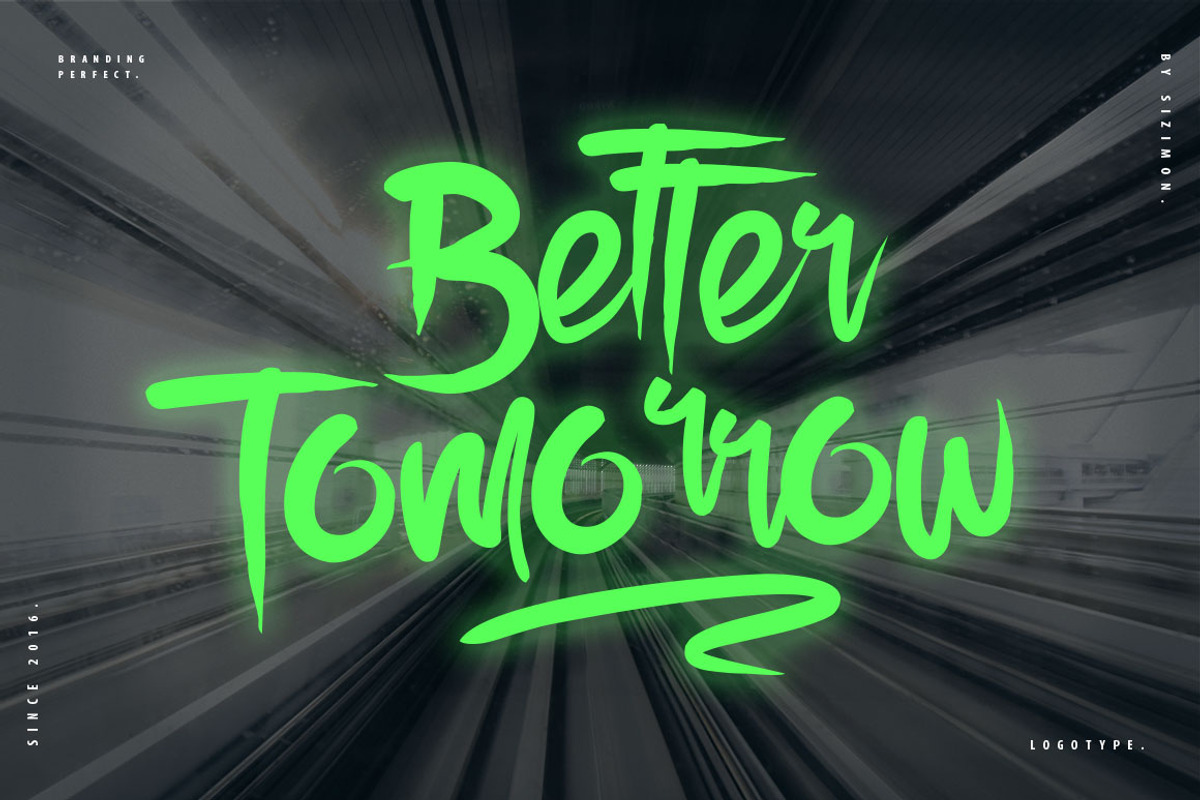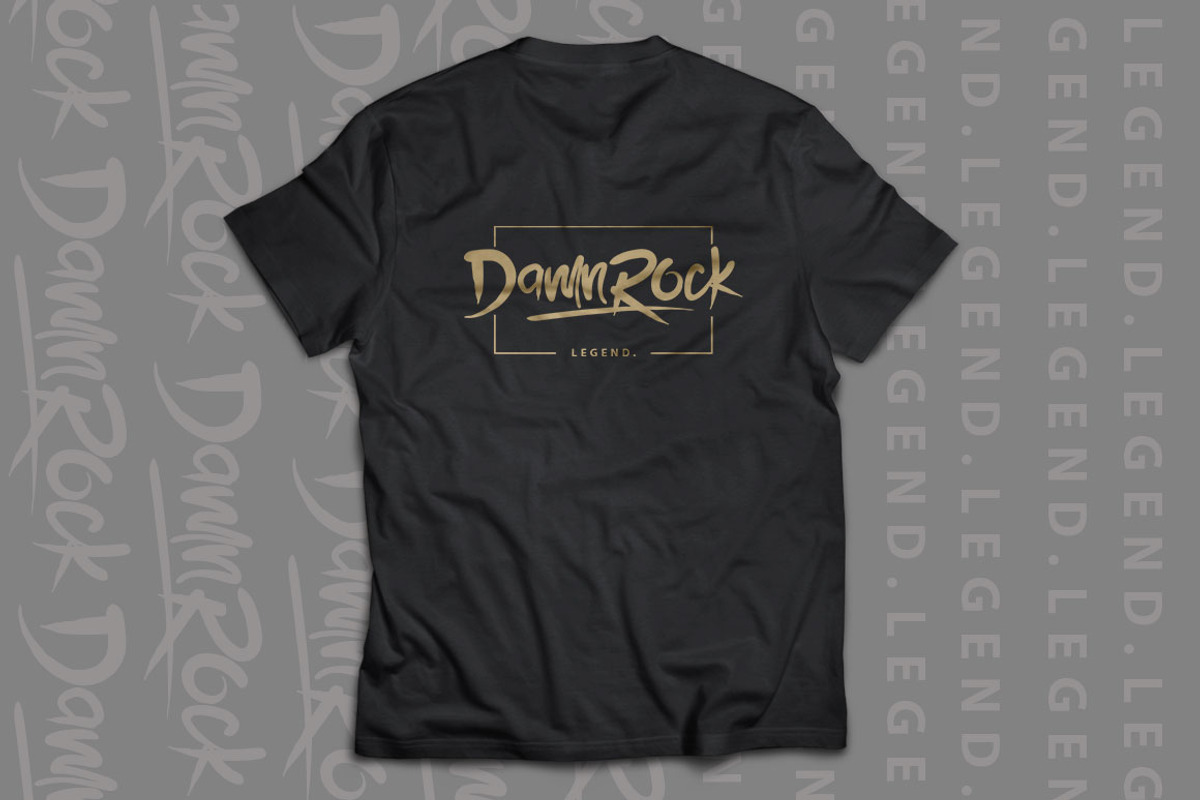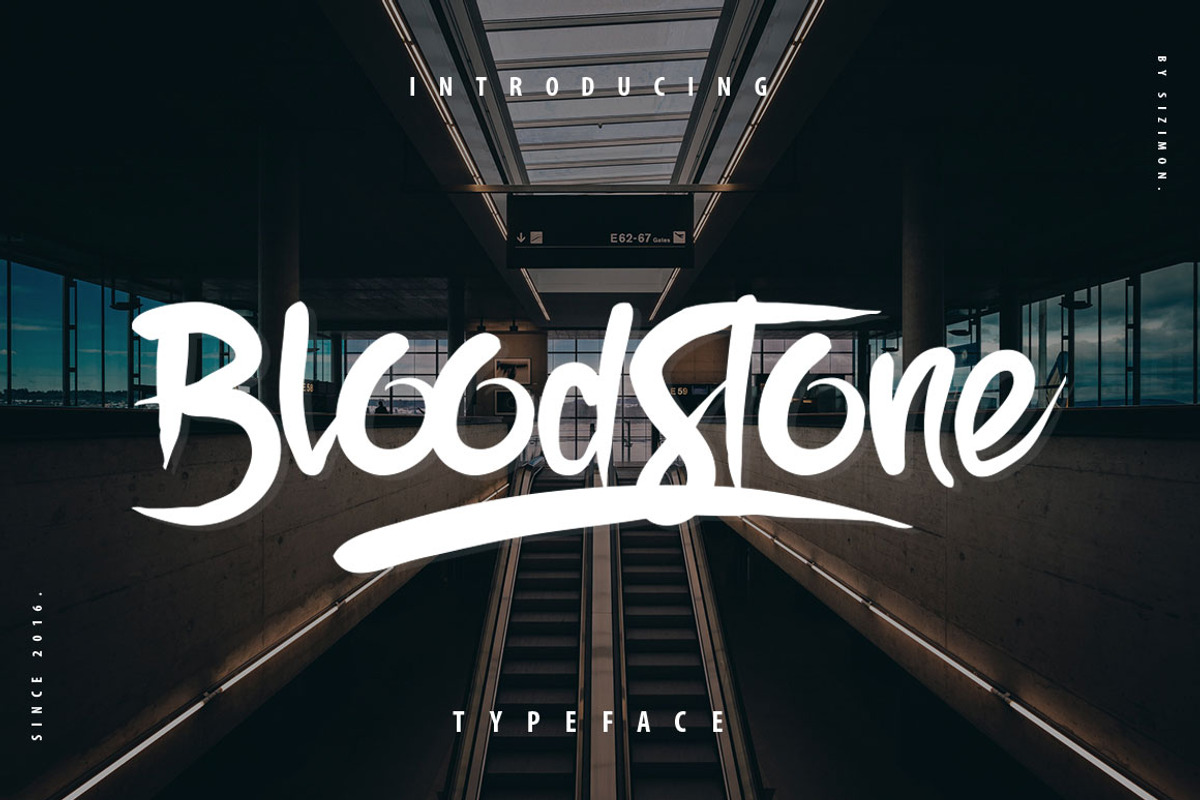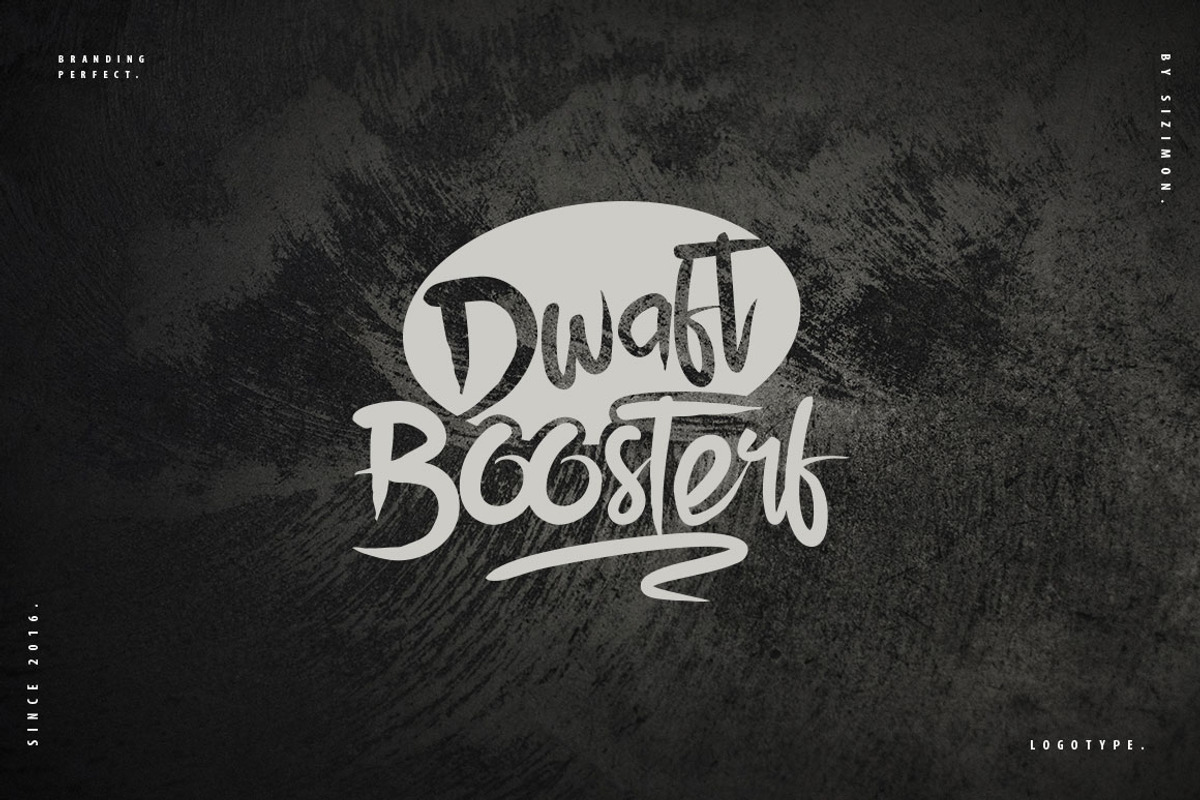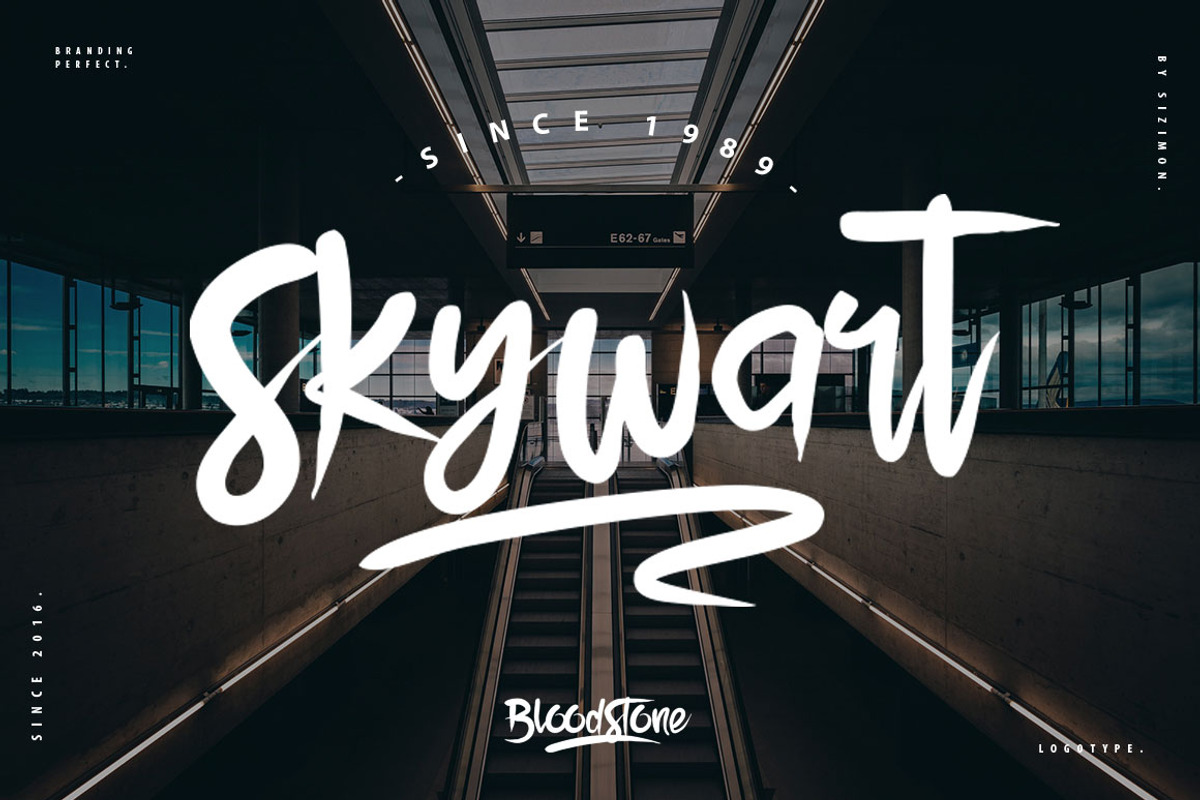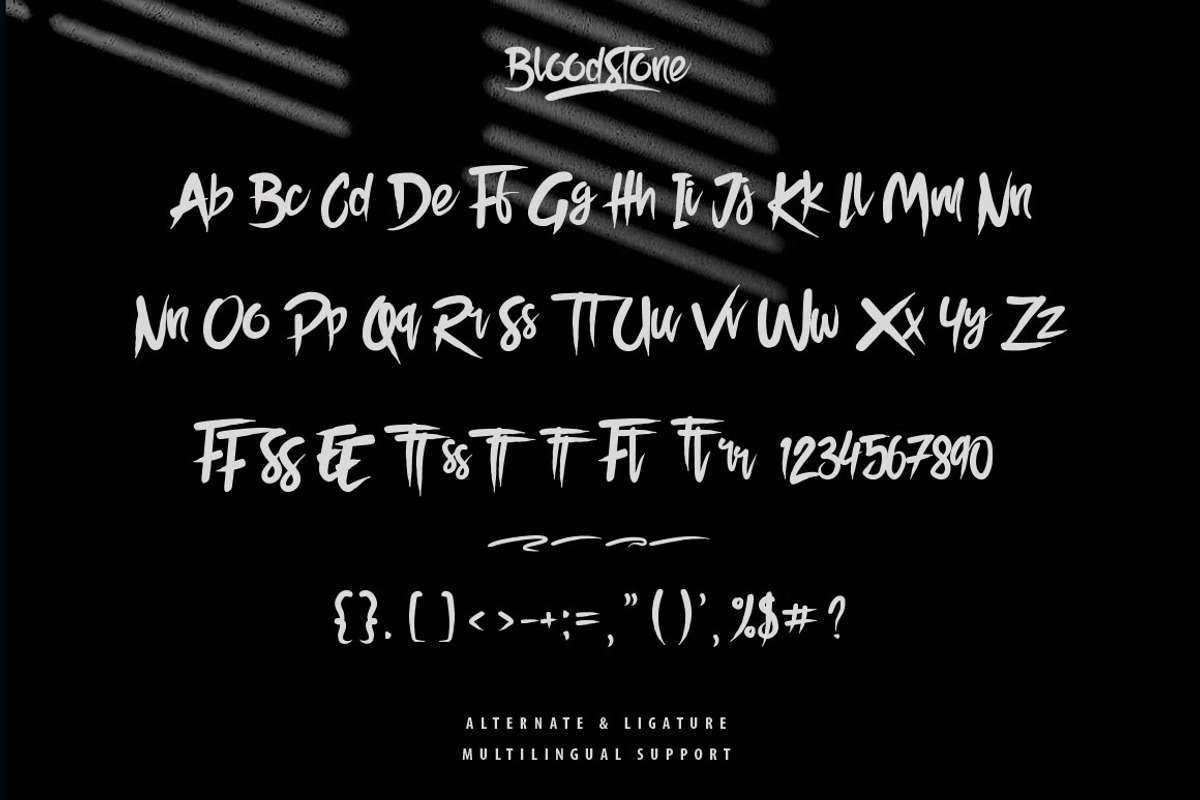
BloodStone Typeface
BloodStone Typeface by sizimon is a font selected for branding, posters, packaging, typography.
Why BloodStone Typeface is worth a look
BloodStone Typeface by sizimon fits naturally into Branding, posters, packaging, typography.